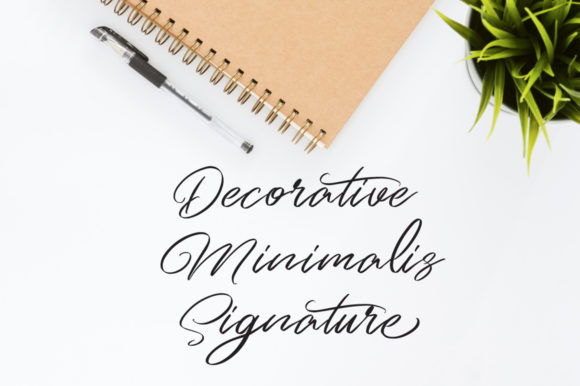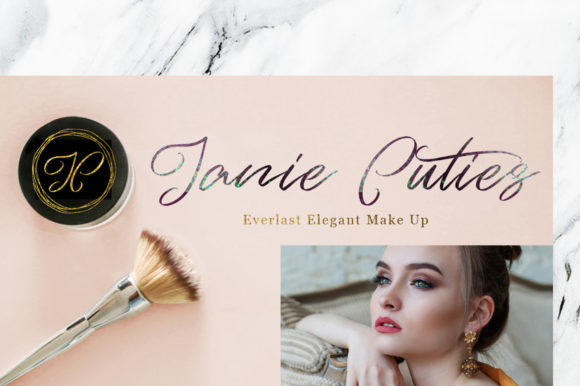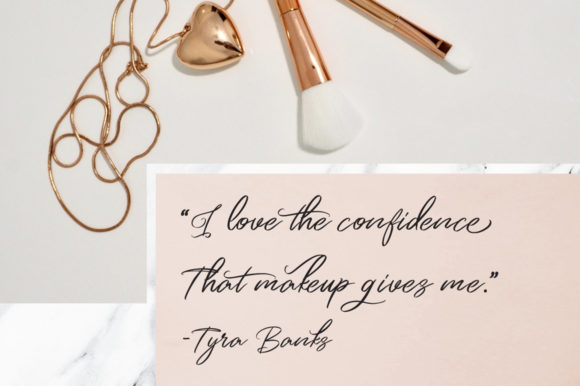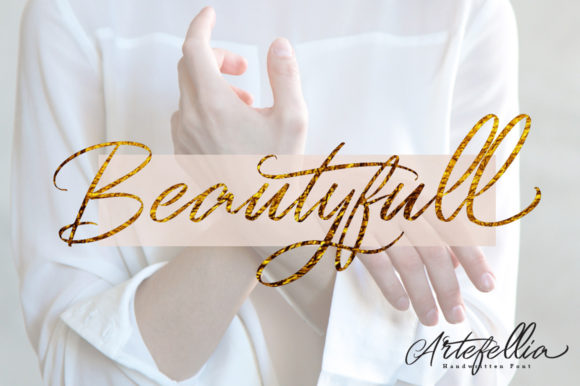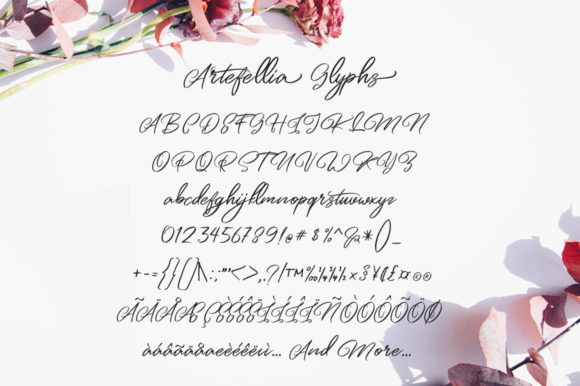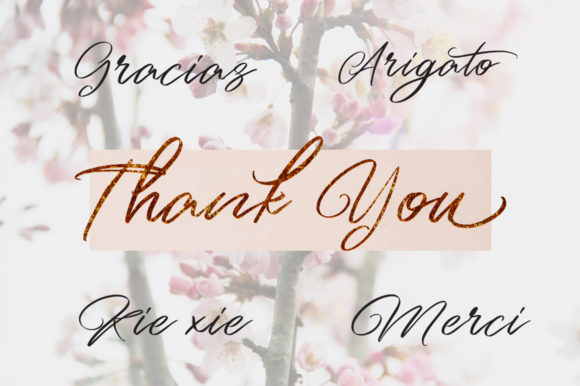
HomeScript FontsArtefellia Font Script Fonts Artefellia Font FacebookXPinterestWhatsApp Artefellia Font Poster 2 Artefellia Font Poster 3 Artefellia Font Poster 4 Artefellia Font Poster 5 Artefellia Font Poster 6 Artefellia Font Poster 7 About Artefellia Font Artefellia is romantic script font with playful curves. Great for a variety of projects! DOWNLOAD ON CREATIVE FABRICAThis font is sold and delivered by Creative Fabrica. Font Canyon may earn a commission if you buy through this link. People also explored Saio Font The Hero Font Filmotype Keynote Fantasy Kids Font Fuister Script Font Senoritha Font Xomai Font Vinttadge Font Daydream Font 380 0 TagsArtefellia Font Previous articleMagentasia FontNext articleWondertime Font LEAVE A REPLY Cancel reply Comment: Please enter your comment! Name:* Please enter your name here Email:* You have entered an incorrect email address! Please enter your email address here Website: Save my name, email, and website in this browser for the next time I comment. Personal Use Free Bitcrusher Condensed Bold Personal Use Free Read more about this font Roland Personal Use Free Read more about this font Vuldo Personal Use Free Read more about this font Cataclysmo Personal Use Free Read more about this font BLOG Best Fonts for T-Shirt Design – Top 2025 Picks In 2025, t-shirt design has become more than just fashion—it's a form of self-expression. Whether you're... Free Fonts Risk: Why Free Fonts Can Be Dangerous for Designers To increase your work productivity, choose the most readable fonts. The 10 Best Handwriting Fonts to Add Personality to Your Designs